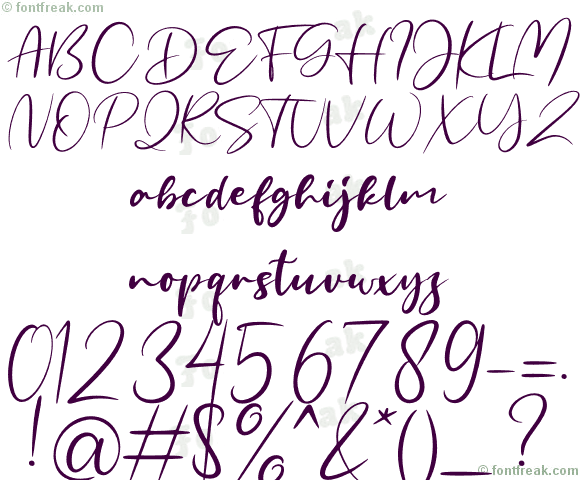
Fritlany
Fritlany, created by Abas Creative in 2020, is a stylish handwritten font that exudes elegance and creativity. With its smooth, flowing strokes and subtle variations in weight, this font captures the essence of modern calligraphy, making it perfect for various design projects. The contrast between thick and thin lines adds a dynamic quality, while the generous spacing between characters ensures clarity and legibility, even at smaller sizes. Decorative elements gracefully embellish certain letters, enhancing the overall aesthetic without overwhelming the viewer.
This versatile typeface is particularly well-suited for wedding invitations, where its romantic flair can set the tone for a beautiful celebration. Additionally, Fritlany is an excellent choice for branding small businesses, such as artisanal cafes or boutique shops, as it conveys a personal touch that resonates with customers. Content creators will find it ideal for social media graphics and blog headers, helping to establish a unique visual identity. Furthermore, its charming style can elevate restaurant menus, making dishes feel more inviting and memorable to patrons.
What sets Fritlany apart is its blend of artistic flair and practicality. The balance of whimsical design and readability ensures it can be utilized across various mediums while maintaining a sophisticated character. For anyone in need of a font that captures attention without sacrificing clarity, the Fritlany font free download is a must-have addition to any creative toolkit.